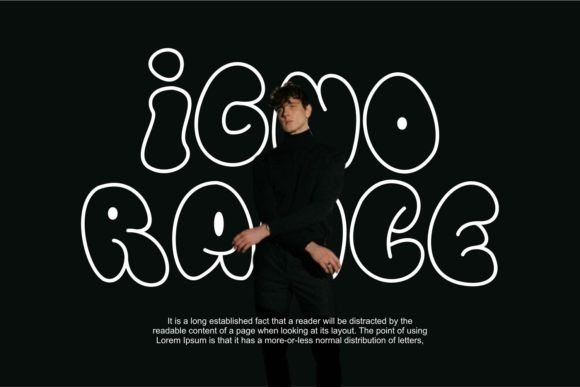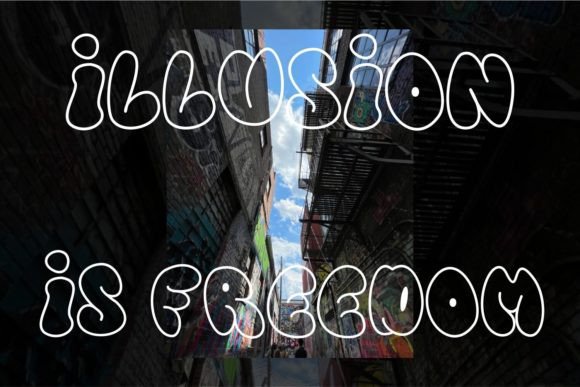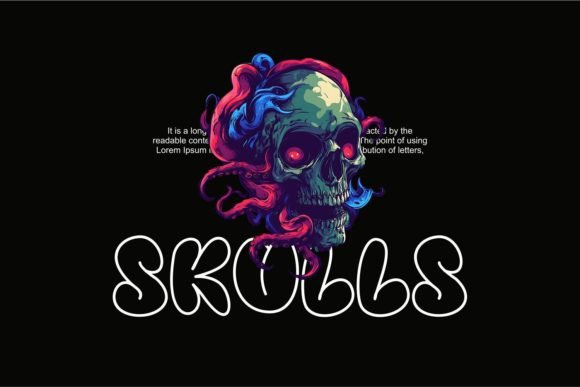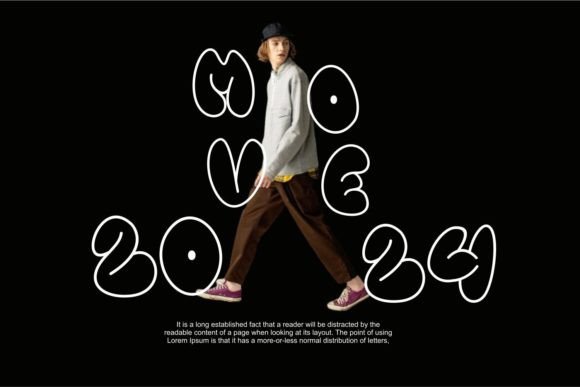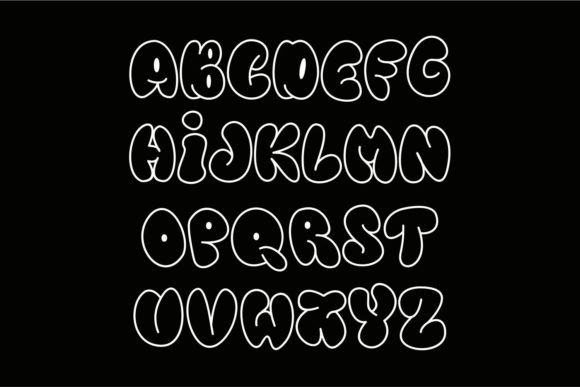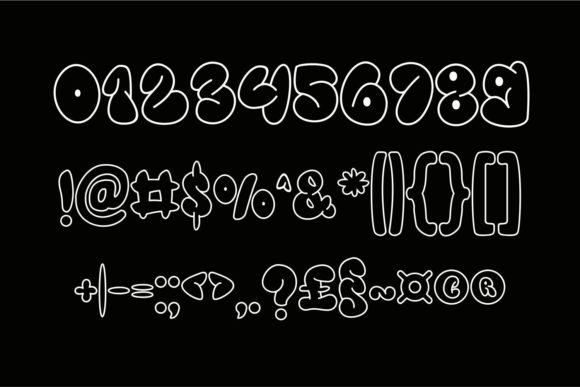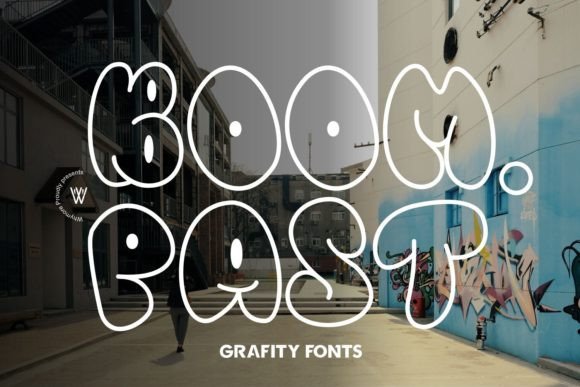
Unlocking the Urban Vibe: A Deep Dive into Boom Bast Font
The Birth of Boom Bast
Boom Bast has its roots firmly planted in graffiti culture, embodying the dynamic flair and spirit of the streets. This font is not just a collection of letters; it’s an experience, a statement, and a bold declaration of urban style. Its dominant and lively style breathes life into projects, offering a dynamic, standout aesthetic that’s hard to ignore.
What Makes Boom Bast Special?
Boom Bast excels in various design areas, particularly in:
- Branding: Giving your brand an urban twist and making it stand out.
- Clothing designs: Adding a street-smart vibe to apparel.
- Posters and digital art projects: Bringing an authentic street culture ethos to visual projects.
It’s the perfect choice for headlines, logos, and inventive projects that require a dash of bold energy. The artistic influence from graffiti adds an essential edgy touch to any modern design, making Boom Bast an indispensable tool for designers aiming to bring an urban twist to their creative process.
- ✨ Dynamic Flair: The font’s unique style captures the essence of graffiti and urban culture.
- ✅ Versatility: It works well in various design projects, from branding to digital art.
- 🔥 Impactful: Boom Bast demands attention, making it perfect for headlines and logos.
⚠️ While Boom Bast is incredibly versatile, it’s worth noting that its bold style might not be suitable for body text or projects requiring a more subtle approach. Also, some users might find the font’s uniqueness challenging to pair with other fonts.
🤔 Another point to consider is that, due to its intricate design, Boom Bast may not be the best choice for very small sizes or low-resolution displays.
Designer Inspiration: The Story Behind Boom Bast
Boom Bast was born out of a passion project by a group of designers who immersed themselves in the graffiti culture. They traveled the world, capturing the essence of street art and translating it into a font that could be used by creatives everywhere. The goal was to create a font that wasn’t just a tool but a statement piece, capable of transforming any design into a strikingly artistic and visually arresting piece.
| Font Name | Boom Past Font |
Q: Is Boom Bast suitable for body text?
A: Due to its bold and intricate design, Boom Bast is best used for headlines, logos, and short text snippets rather than body text.
Q: Does Boom Bast support OpenType features?
A: Yes, Boom Bast comes with a range of OpenType features, including stylistic alternates and glyphs, allowing for a high degree of customization.